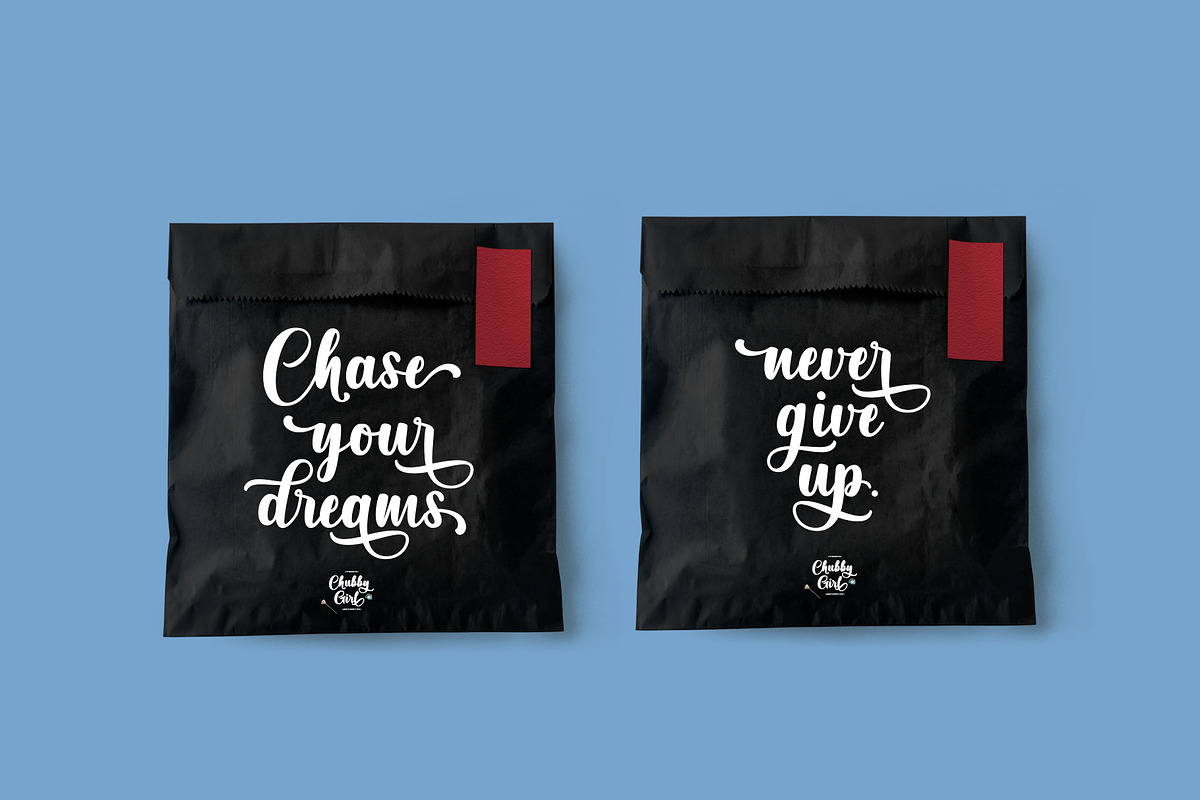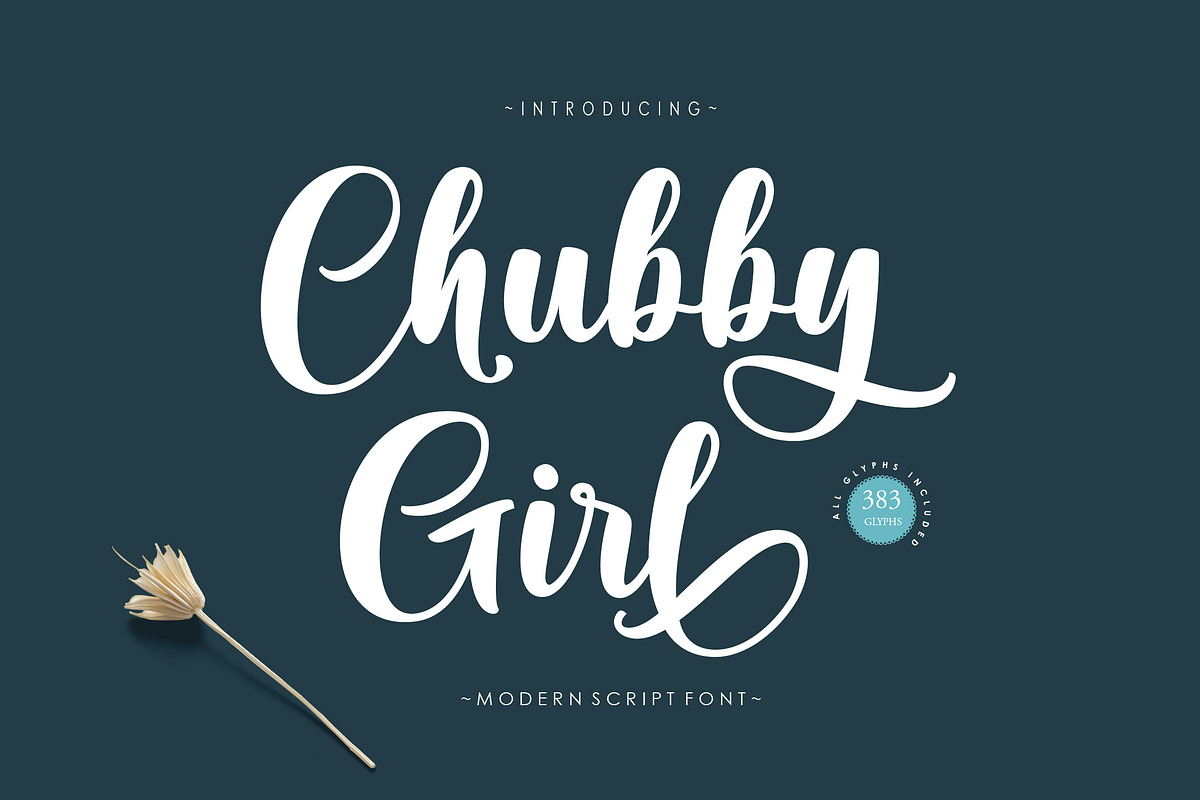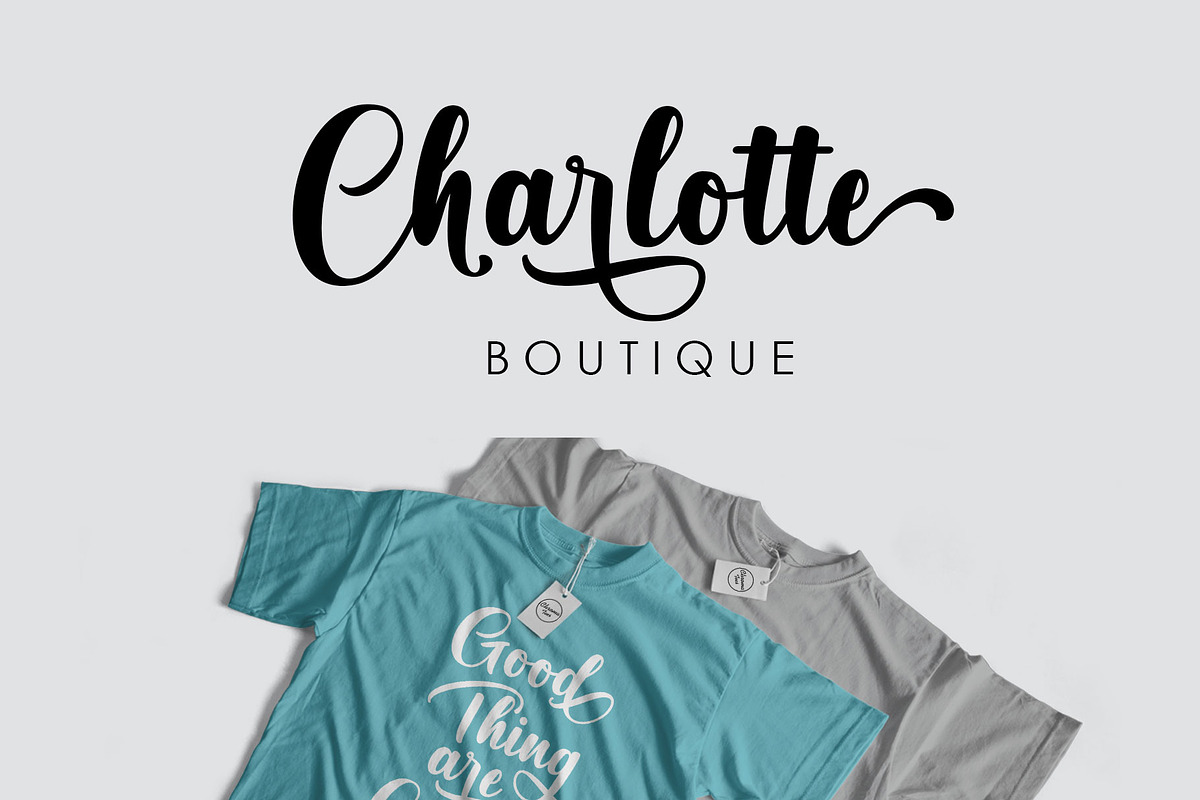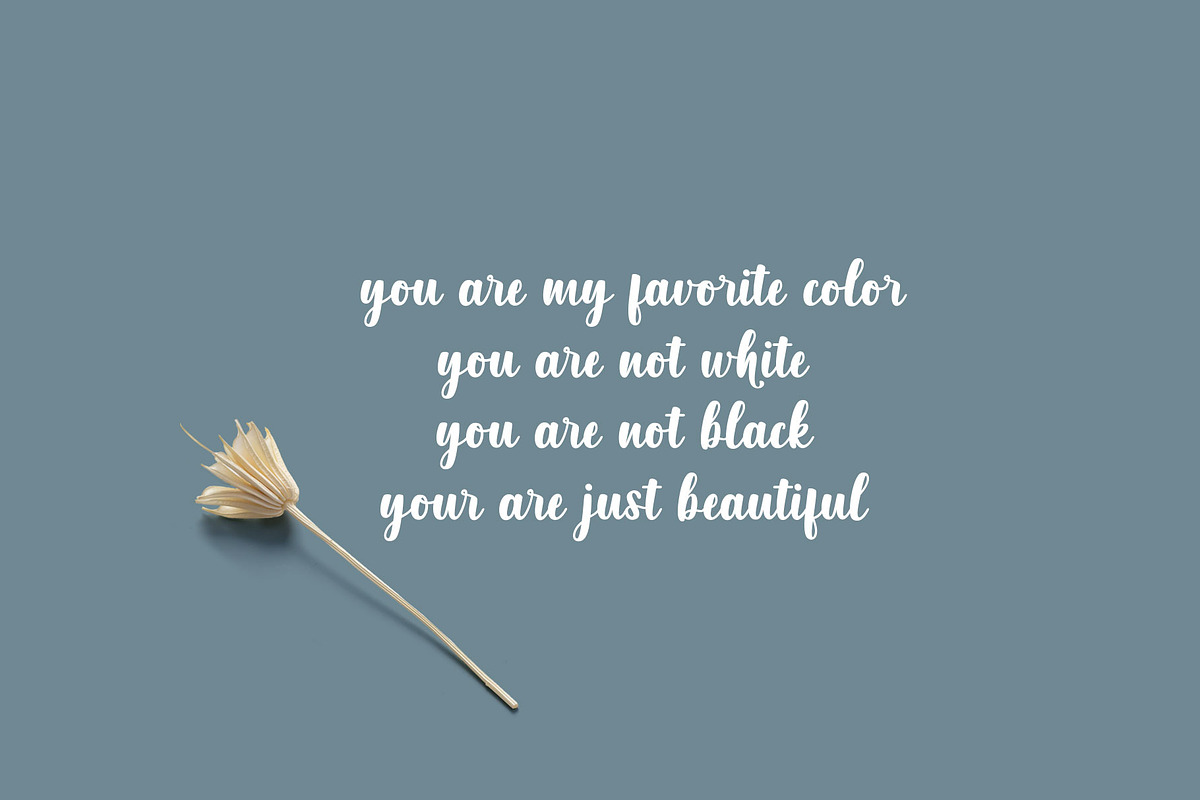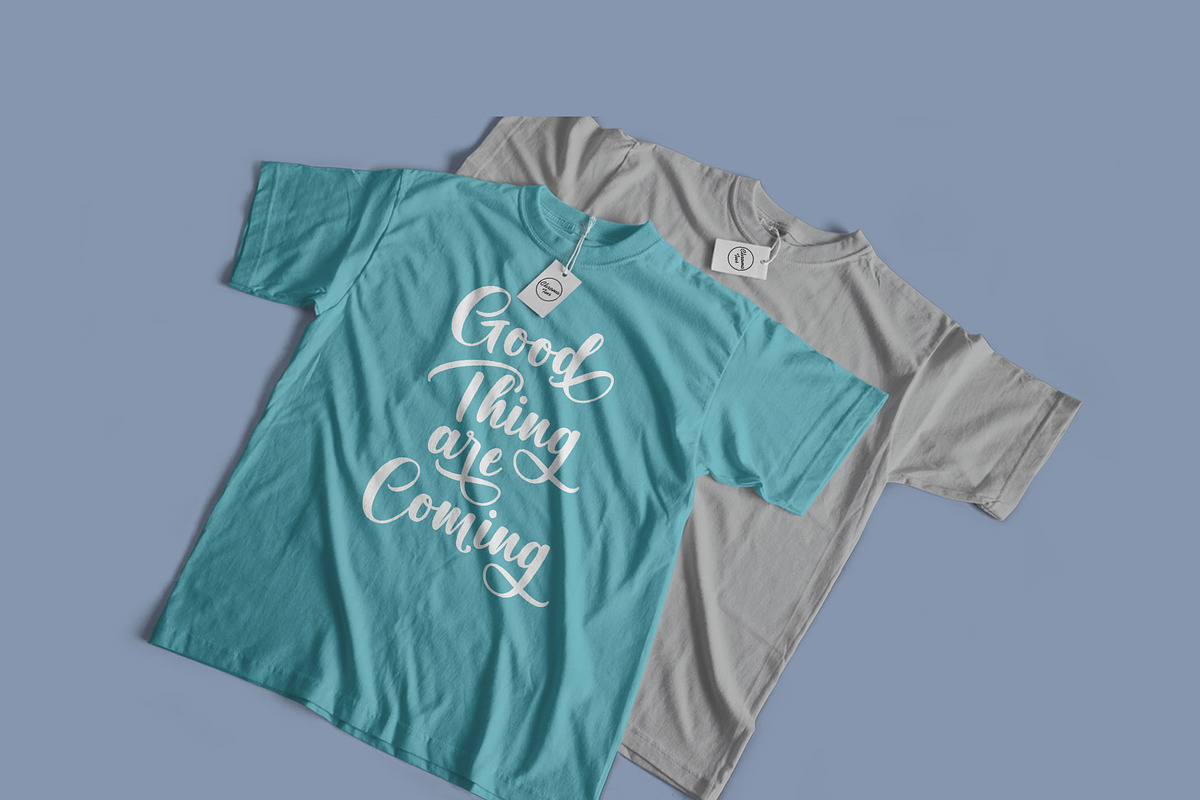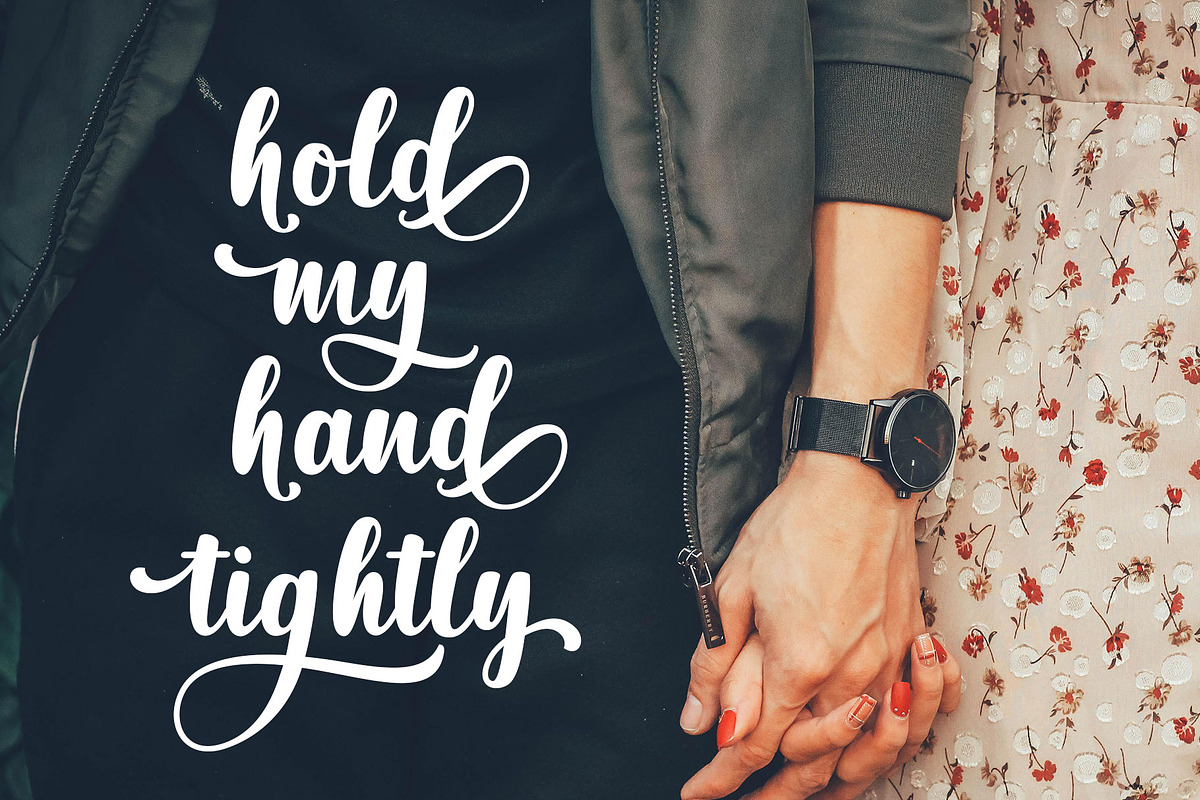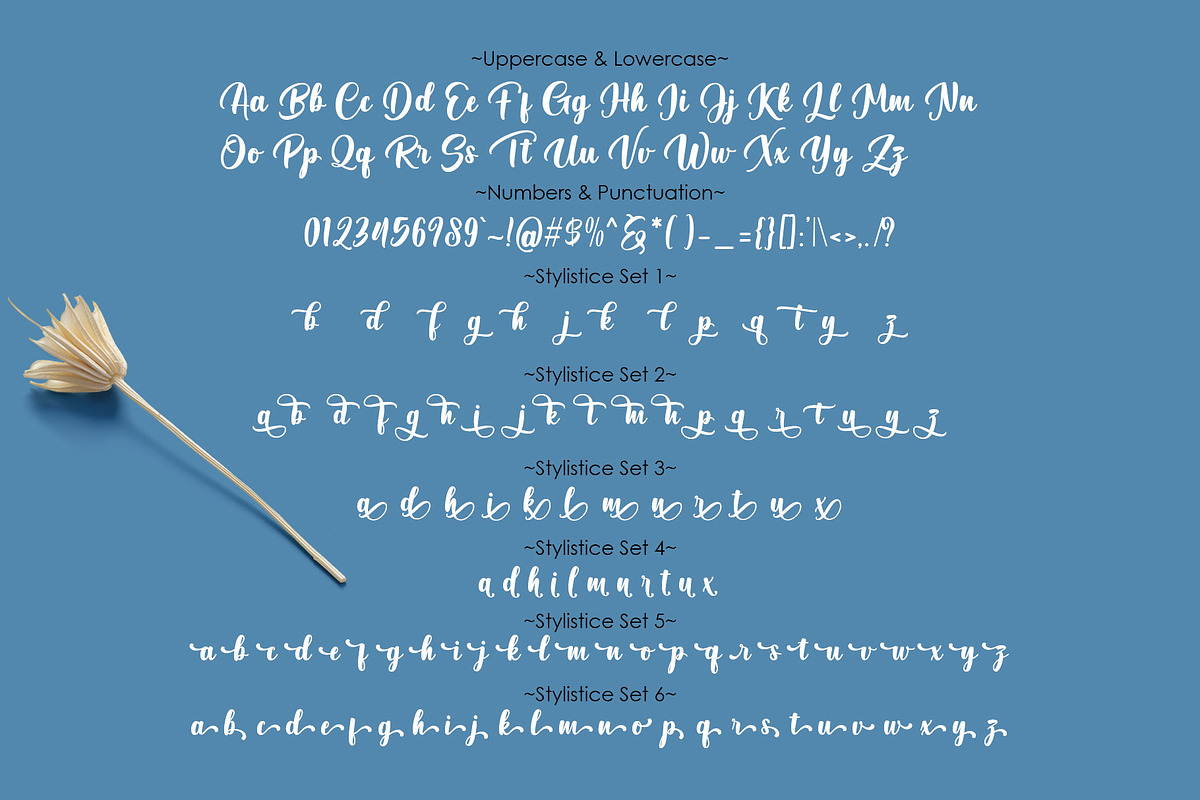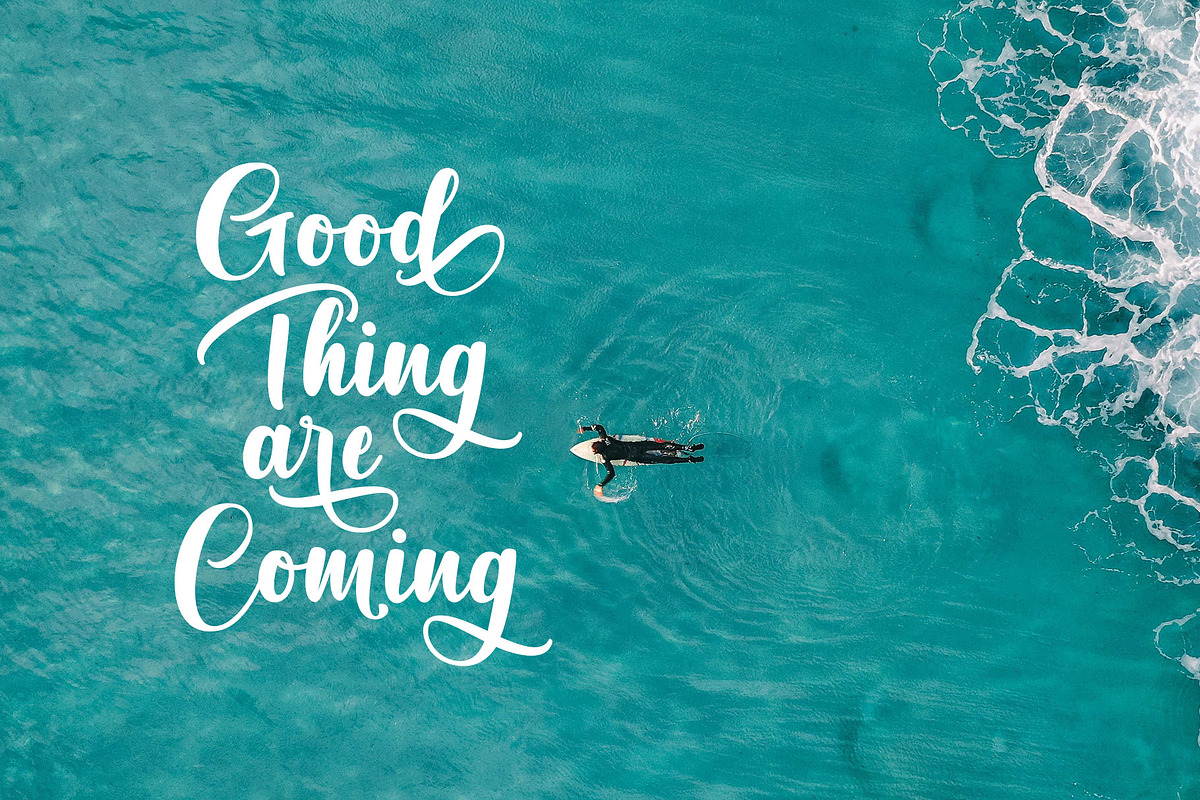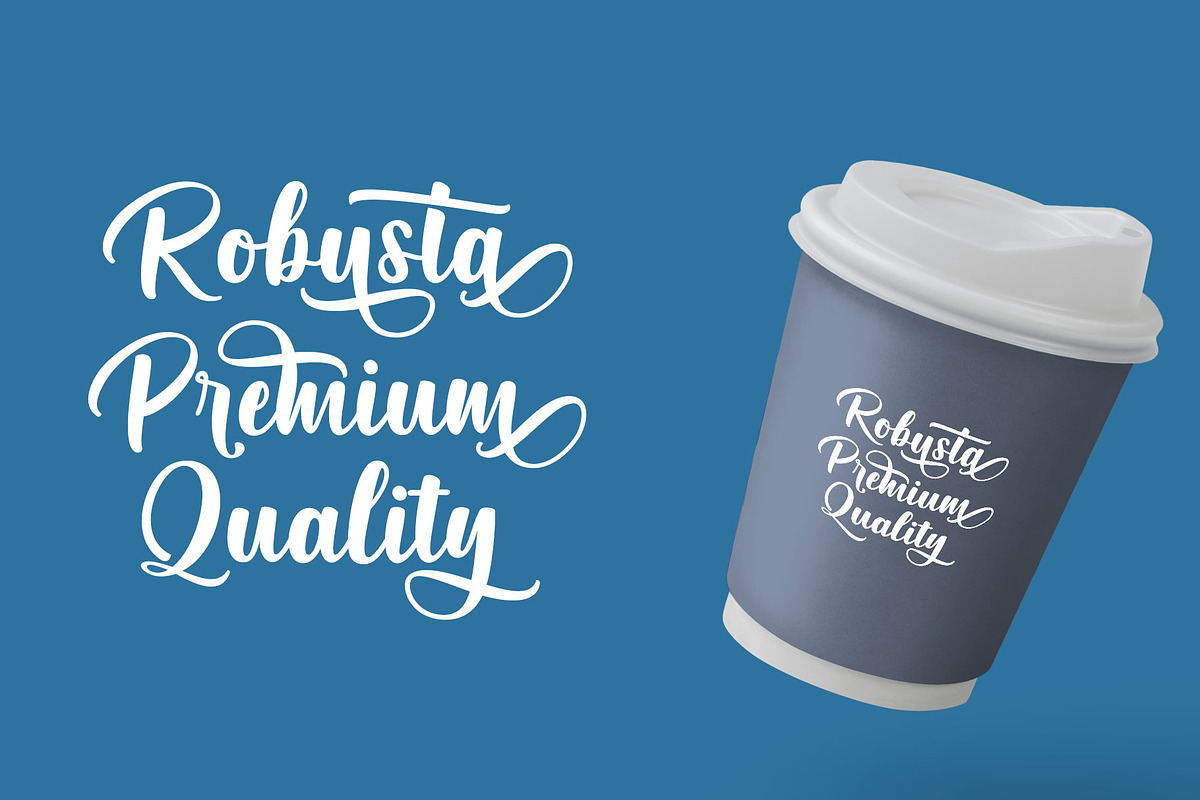
Chubby Girl Script
Introducing Chubby Girl Script, a Modern classy fonts with strong styles and circle movement. It’s allowing you to create hand lettering is an instant. The idea is to help designers to combine and incorporate together of the fonts in your design creative work.
Chubby Girl Bold Script Font is a hand-lettered bold and smooth script. This font is awesome for your creative project such as Logotype, Branding, Packaging, Merchandise, label, and much more.